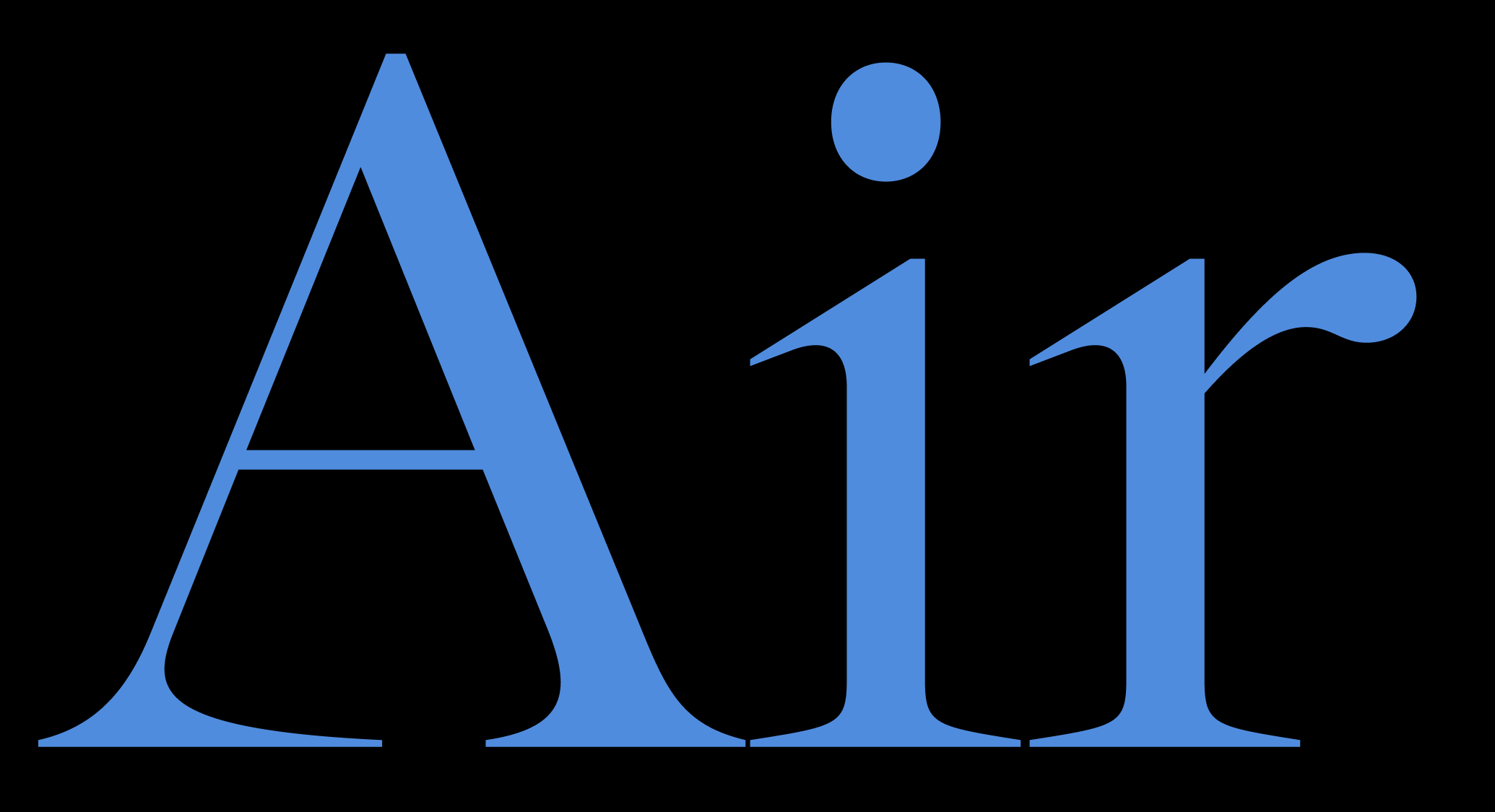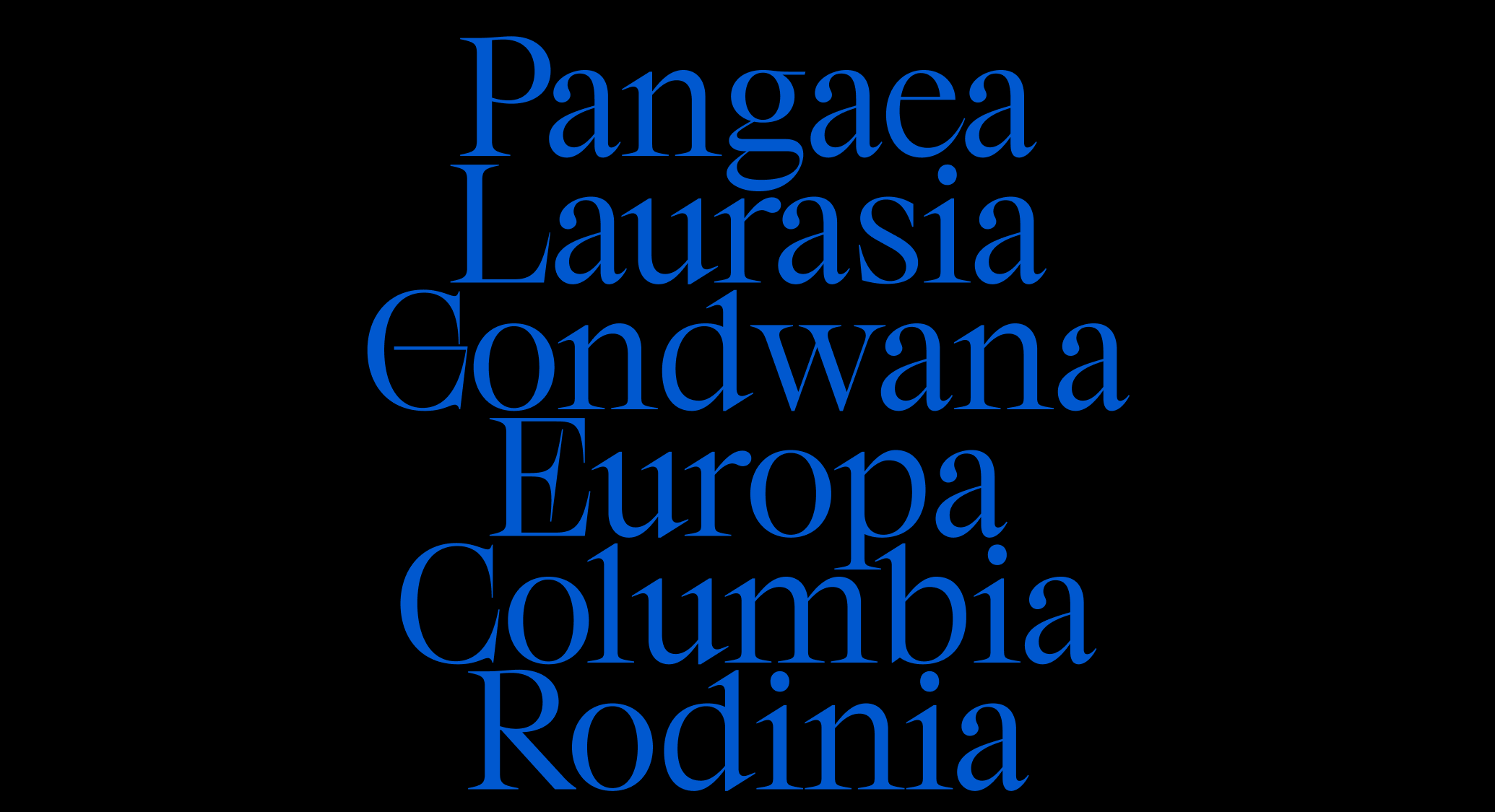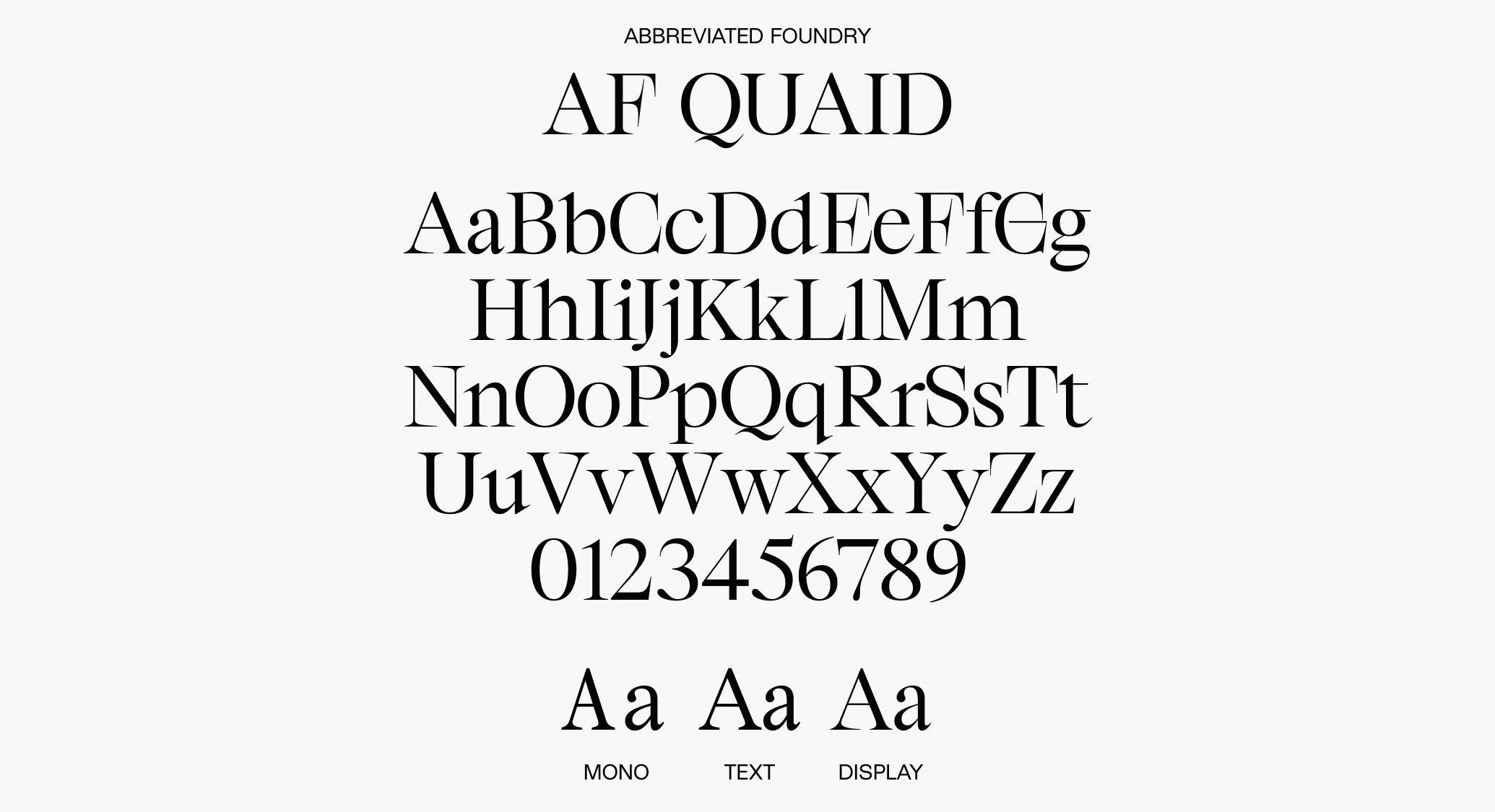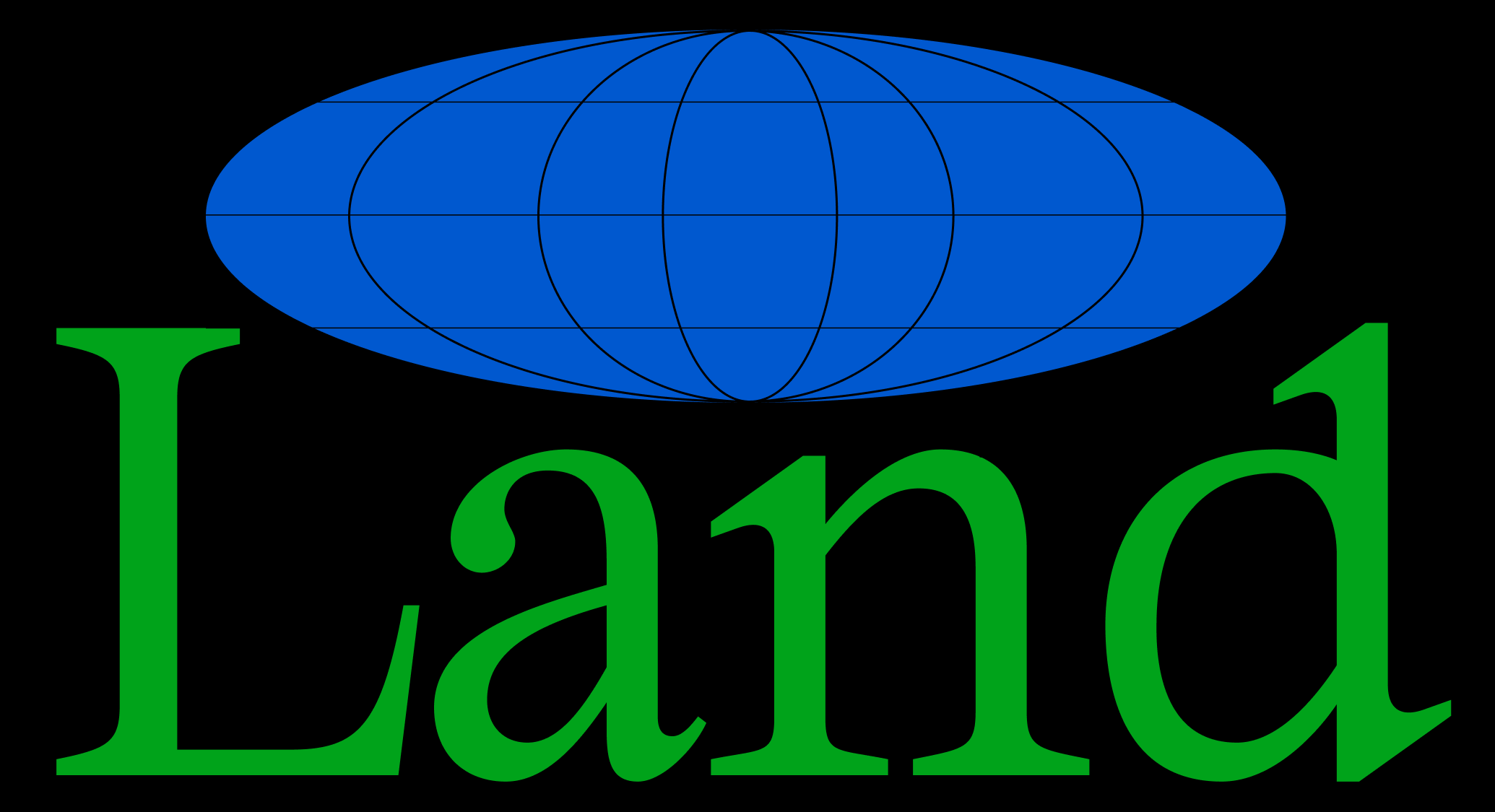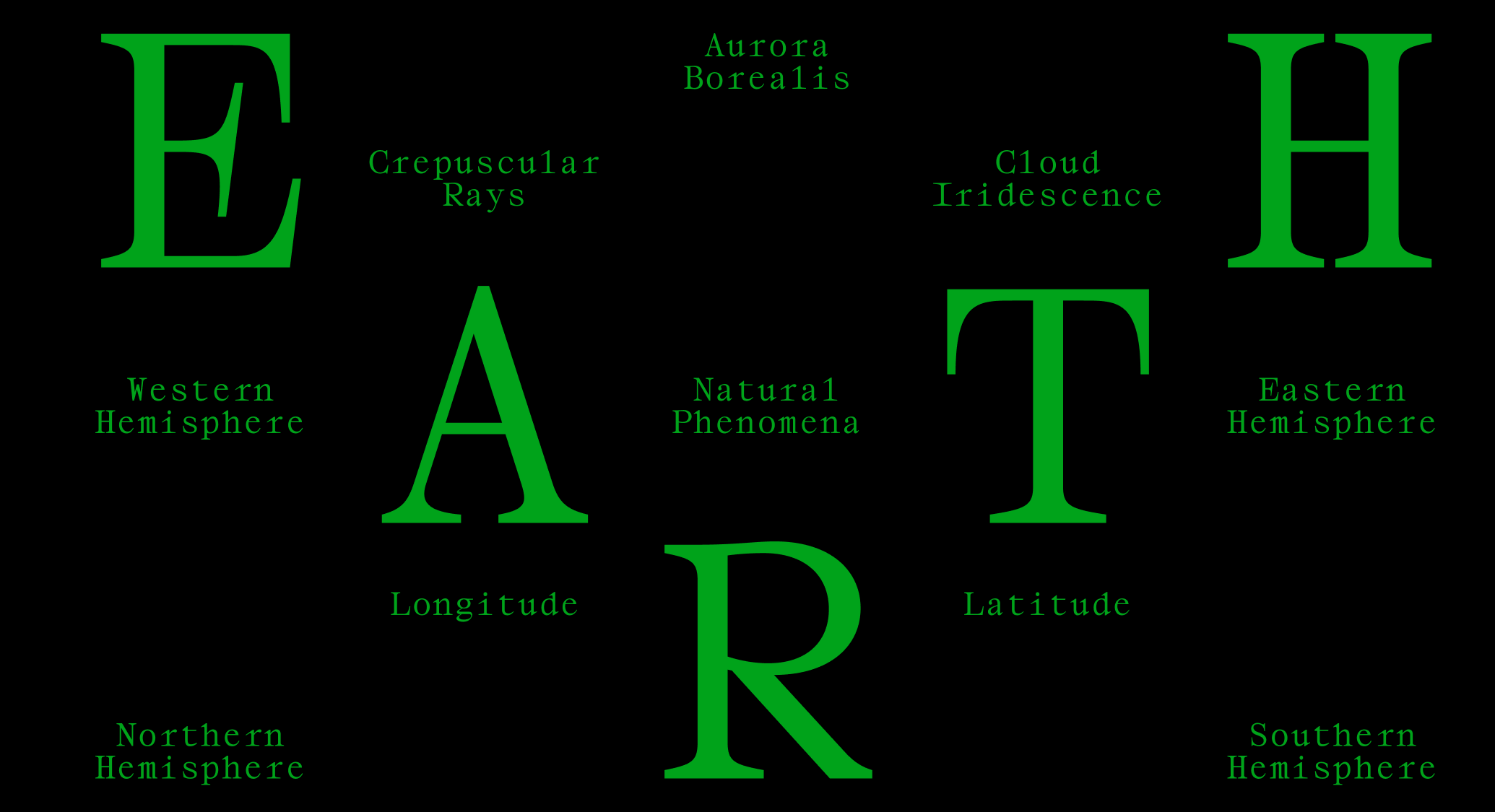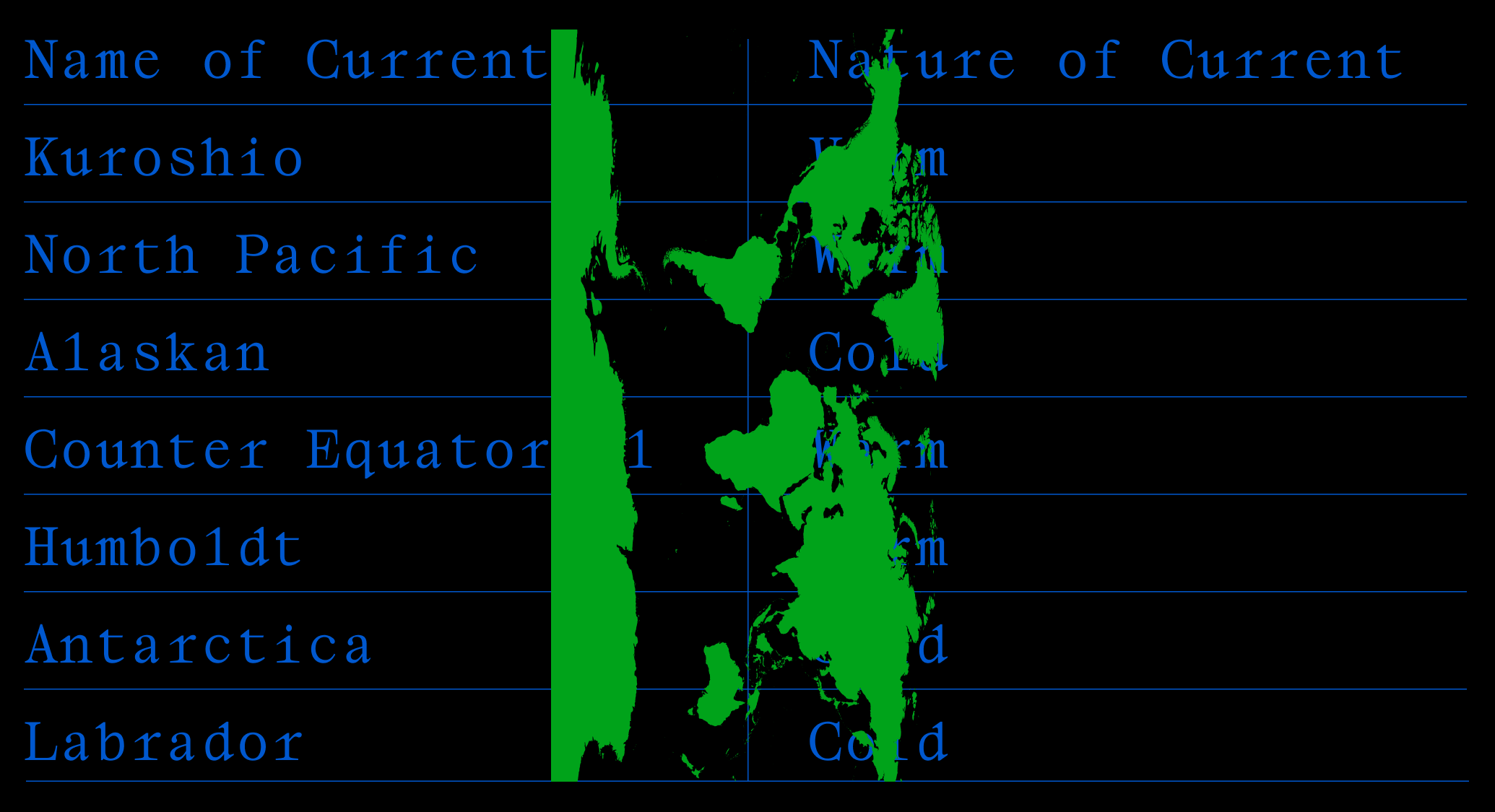
AF Quaid
Text
Mono
Display
AF Quaid is a twinkling serif with an extraterrestrial tilt. Its exaggerated serifs resemble the fins of a starship, or the beams of a laser. Available in three styles — Mono, Text, and Display — Quaid is the serif of the future, designed to blast to Mars and back, broadcasting in an alien tongue along the way.